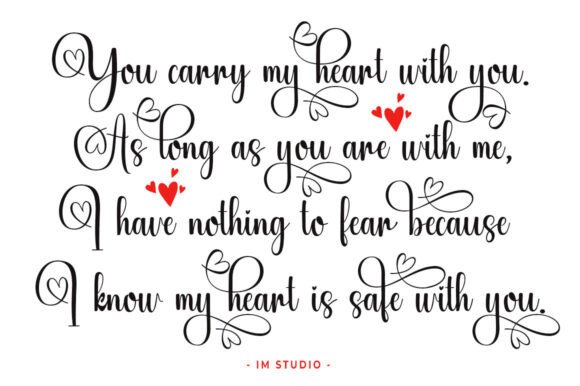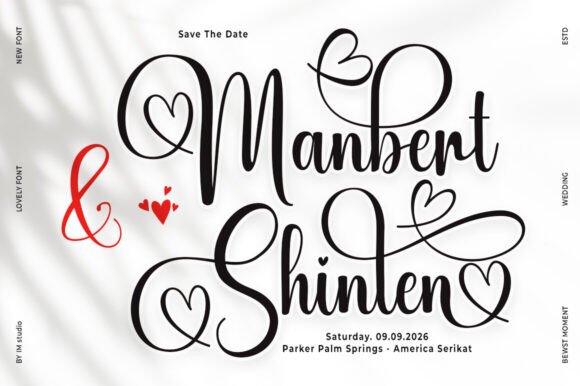
Buffen Font
Buffen Script is an elegant handwritten font with a stunning modern touch. This font is designed with fine details and artistic curves that give a luxurious yet friendly impression. Suitable for various design purposes, Buffen Script can be used on wedding invitations, logos, branding, greeting cards, and other creative projects.